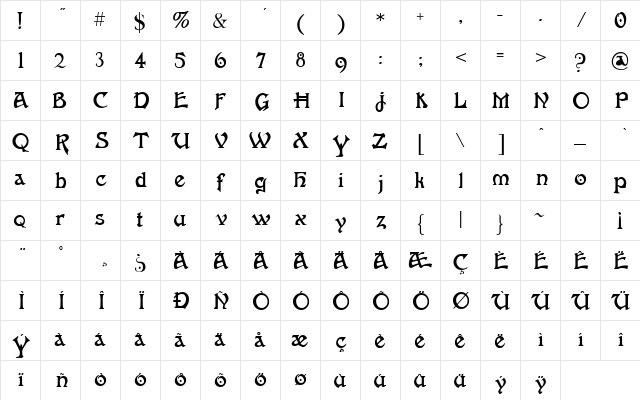
FantaisieArtistique Regular
Design Context for FantaisieArtistique Typeface
FantaisieArtistique is a composed and adaptable typeface that performs quietly and consistently across a wide range of design contexts.